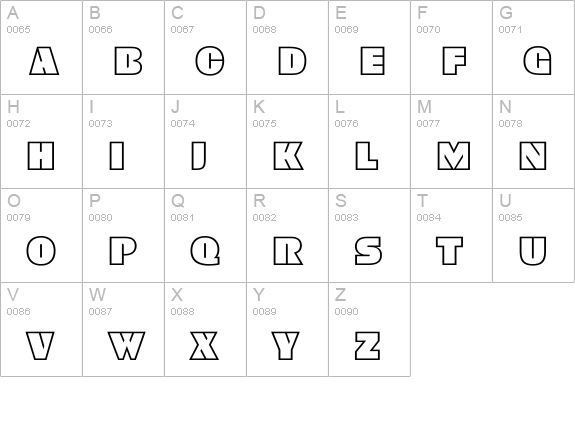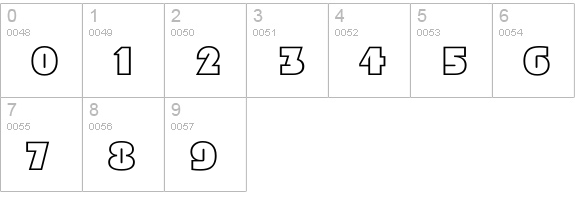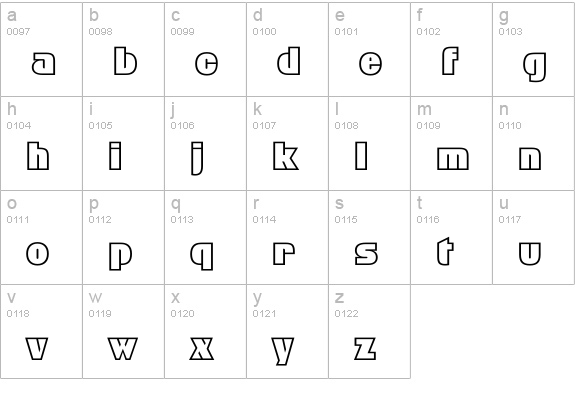
GeoC Font Details
Introducing GeoC font, a sleek and modern typeface that is perfect for a wide range of design projects. With its clean lines and geometric shapes, GeoC font exudes a contemporary and professional vibe that will enhance any design layout. This versatile font is ideal for logos, branding, headlines, and more. What makes GeoC font even more appealing is that it is available for free download at FontsMarket.com. Yes, you read that right - you can get your hands on this stylish font without spending a penny. Don't miss out on the opportunity to add GeoC font to your font collection and elevate your design projects today!